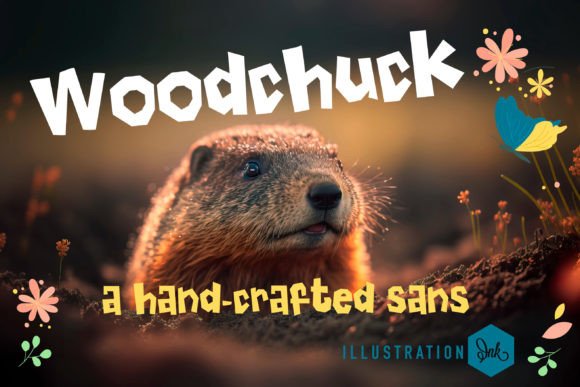
Are you looking for a font that will make your designs stand out? Meet Woodchuck Font, the best font for title in Canva! Created by Illustration Ink, Woodchuck is a chunky and attractive sans-serif font that will grab your audience's attention.
Woodchuck's bold and versatile design makes it perfect for any project that requires a strong and impactful design. Its clean and simple letters have a touch of character and personality, making it a great choice for both professional and personal projects.
This font's thickness and geometric shapes make it an excellent option for logos, headlines, and any design element that requires a powerful and striking font. It is perfect for graphic designers, content creators, and anyone who wants to elevate their design game.